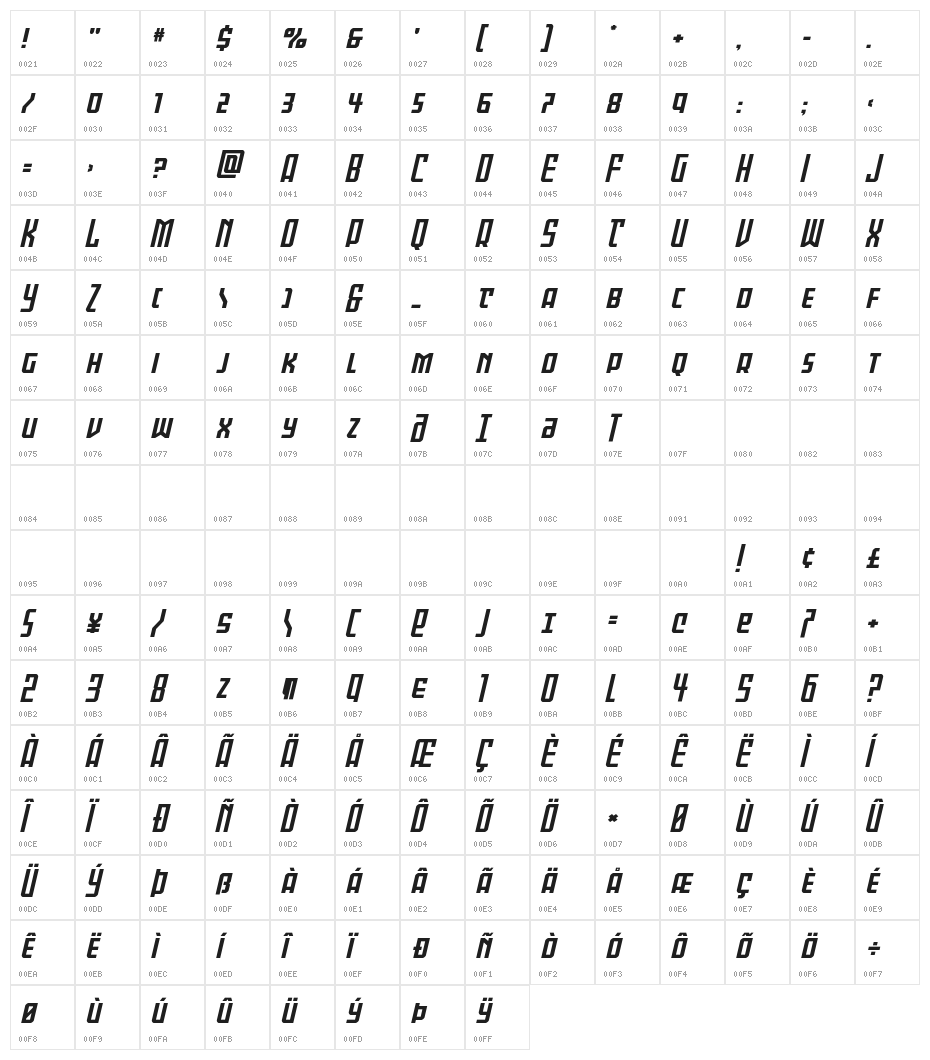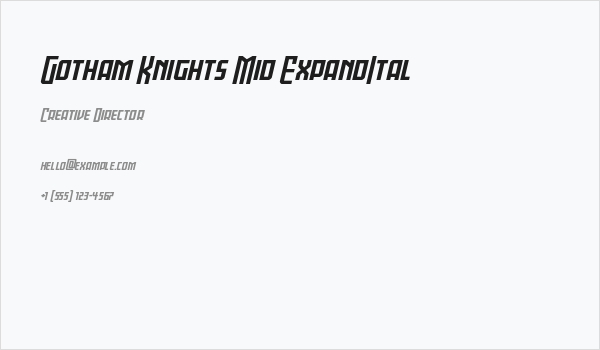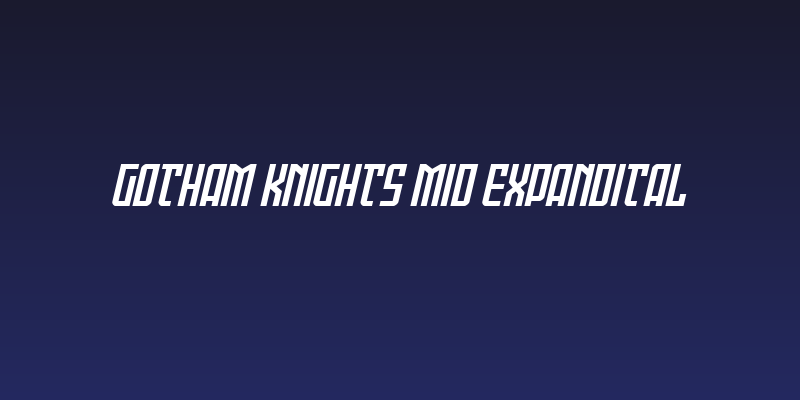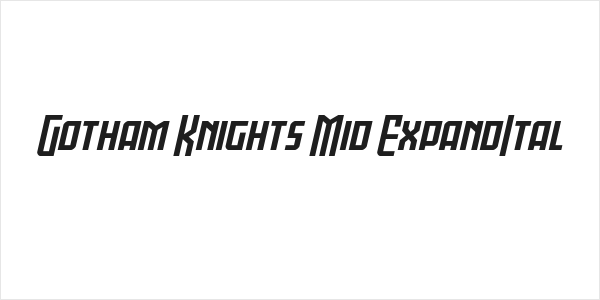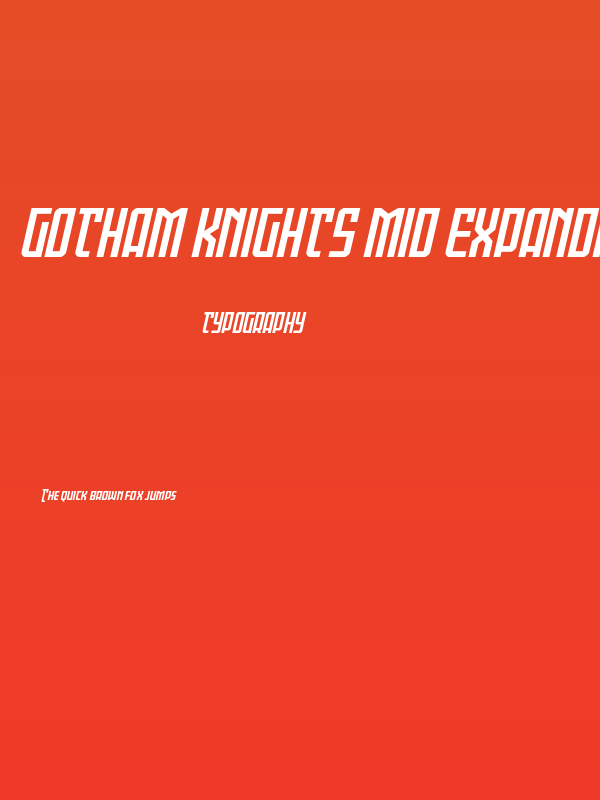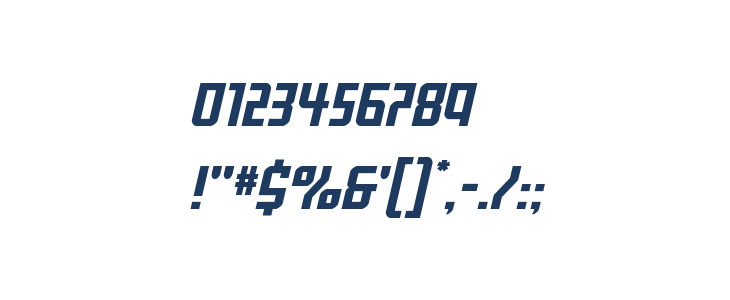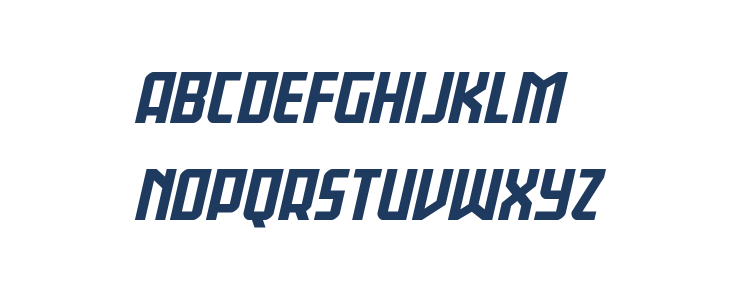
Gotham Knights Mid ExpandItal Font
Gotham Knights Mid ExpandItal Description
This font features a bold and dynamic style with a modern, angular design. The characters are slightly italicized, giving them a sense of motion and energy. The uppercase letters are particularly striking, with sharp edges and a geometric flair. The numbers and special characters maintain the same boldness and angularity, ensuring consistency throughout. The font's expanded width adds to its commanding presence, making it ideal for attention-grabbing headlines or titles. The character spacing is normal, allowing for clear readability despite its bold appearance.